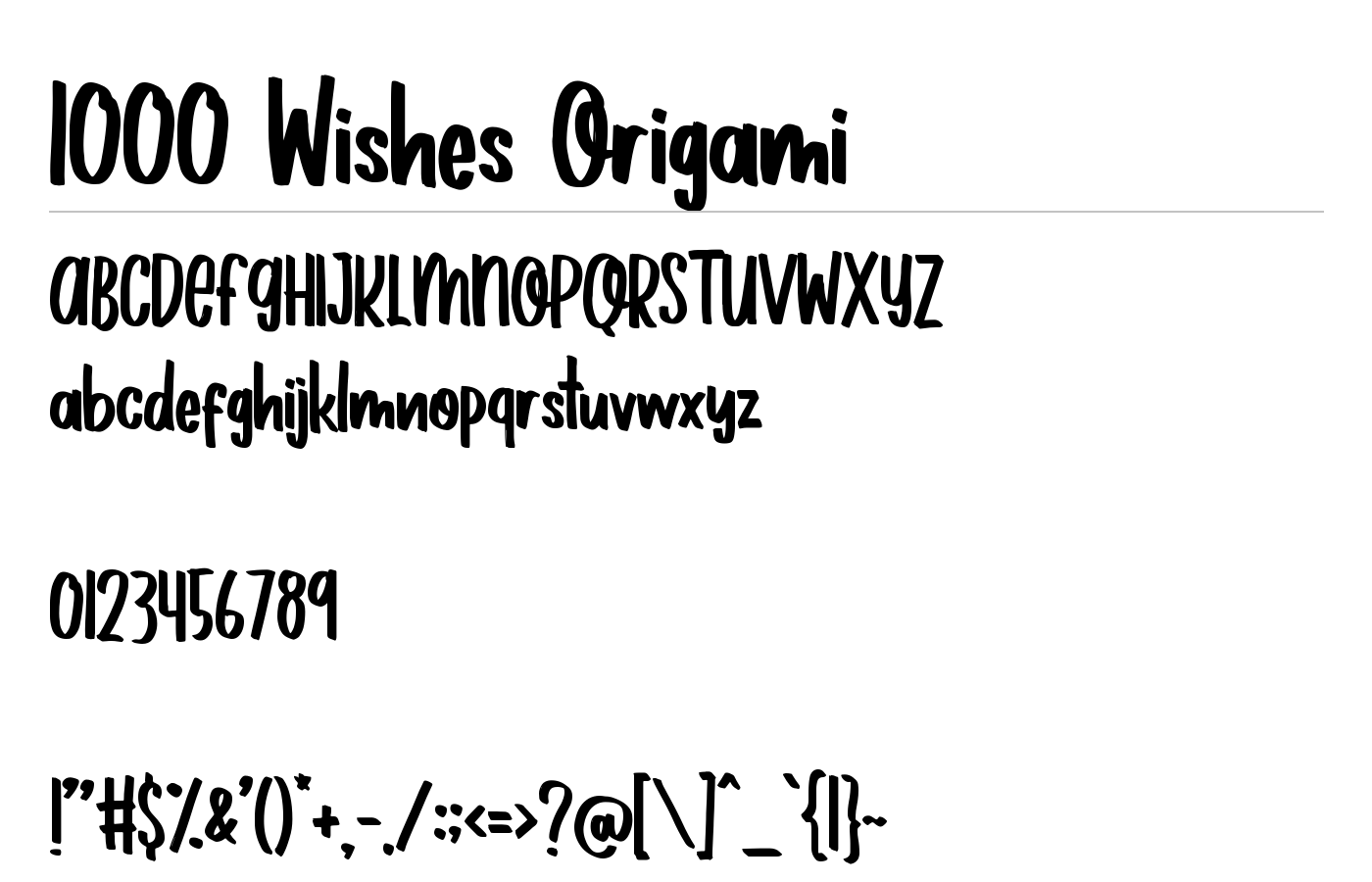
1000 Wishes Origami is a playful, sans serif font with a hand-drawn feel, featuring tall, narrow letterforms and a lively, uneven stroke that brings casual charm and personality to the text. Its condensed width and quirky shapes make it perfect for fun, informal designs like invitations, posters, or branding that aims to feel approachable and creative. This font works best in display uses where its distinct, energetic style can stand out and capture attention.
1000 Wishes Origami Font
About 1000 Wishes Origami Font
| Font family | 1000 Wishes Origami Font |
| Designer | Dimas Prasetyo |
| Trademark | Dm letter Studio Bandung - Indonesia |